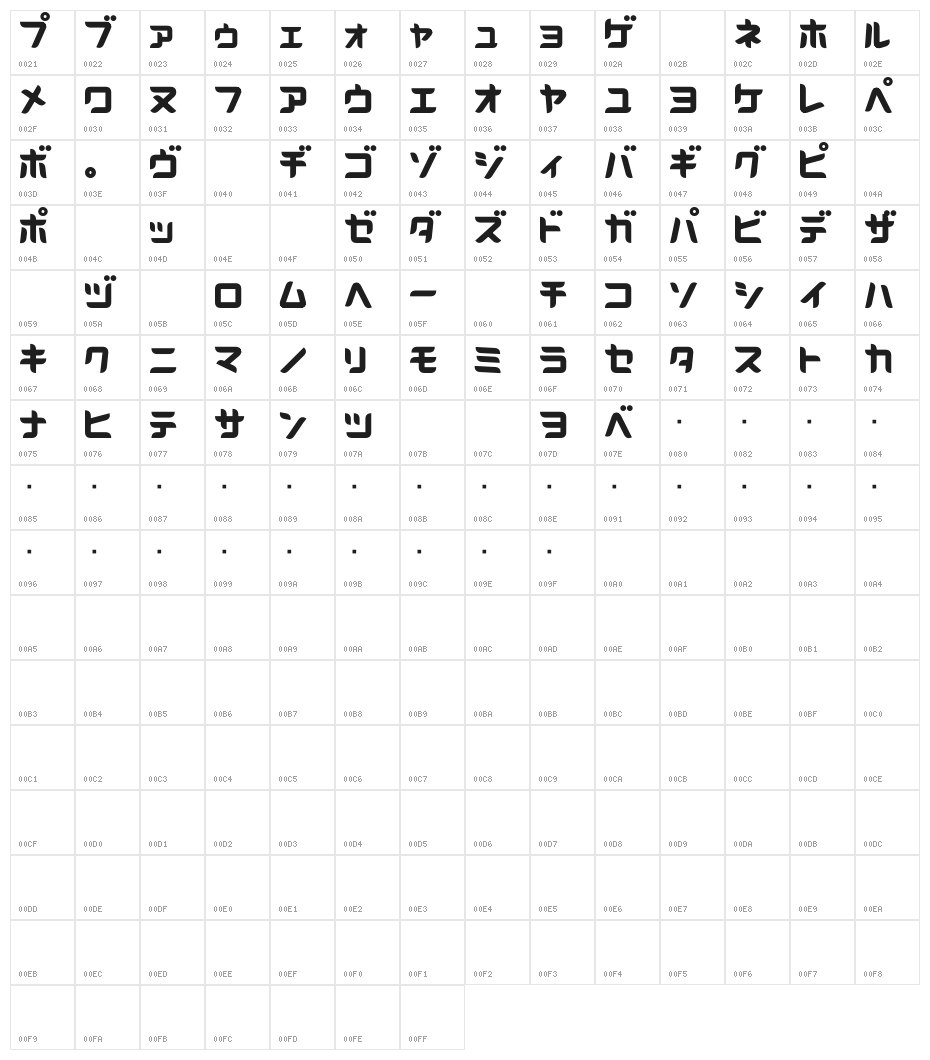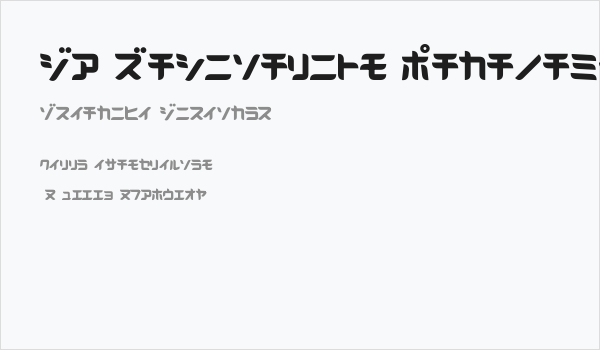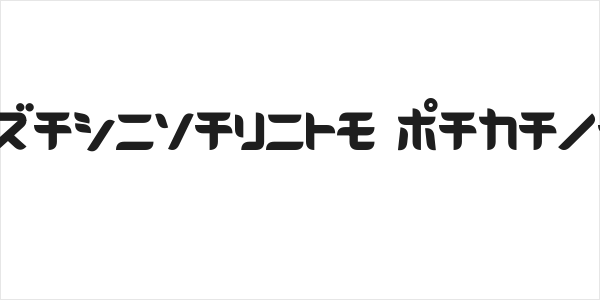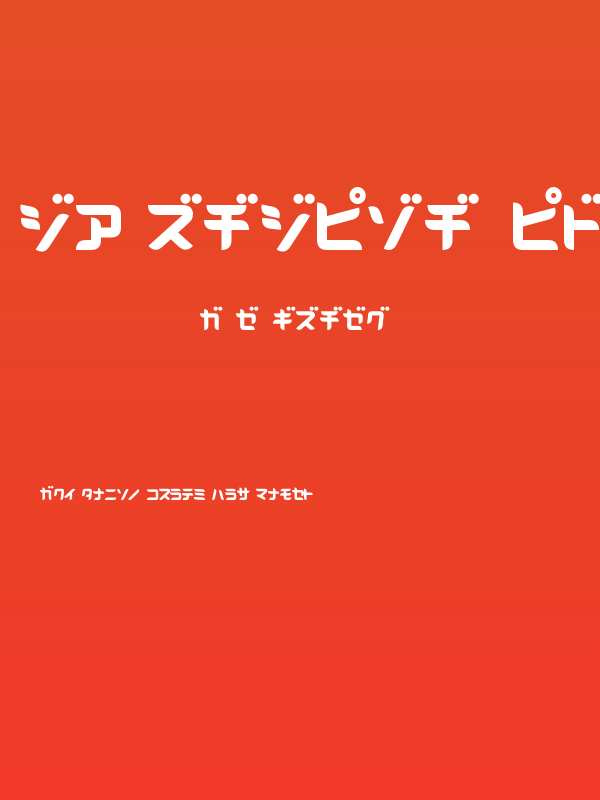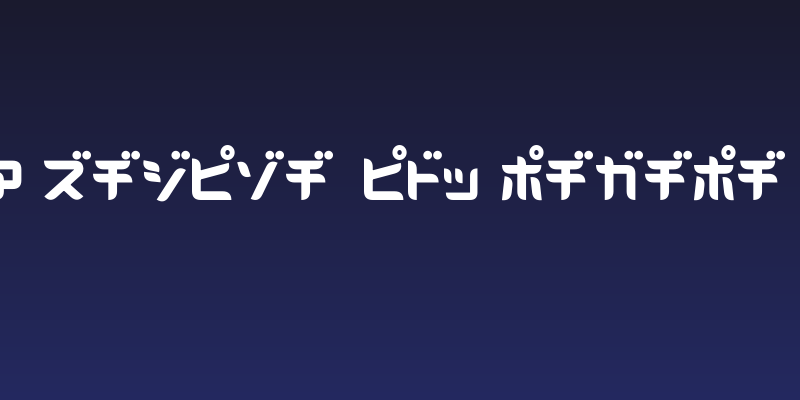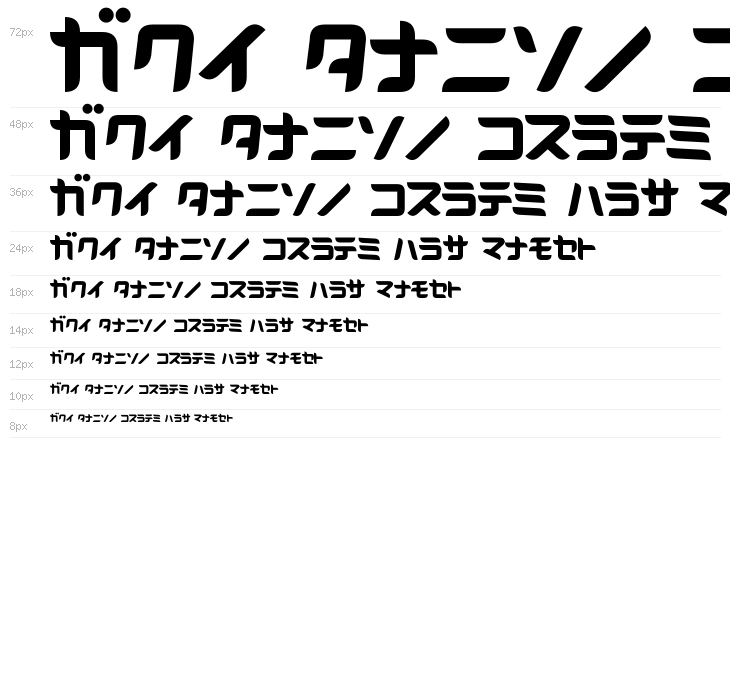
D3 Radicalism Katakana Font
D3 Radicalism Katakana Description
This font features bold, geometric shapes with a distinctly modern and futuristic aesthetic. The characters are crafted with thick strokes and rounded edges, giving them a soft yet impactful appearance. The uniformity in stroke width across characters contributes to a cohesive look, while the slight angularity adds a dynamic feel. The font's design is reminiscent of digital or sci-fi themes, making it suitable for projects that require a contemporary and edgy look. Its legibility is maintained despite the stylized forms, making it versatile for various applications.
| Use Case | Logos, Headlines, Digital interfaces |
| Proposed Projects | Ideal for sci-fi themed designs, digital interfaces, video game graphics, and modern branding projects. |